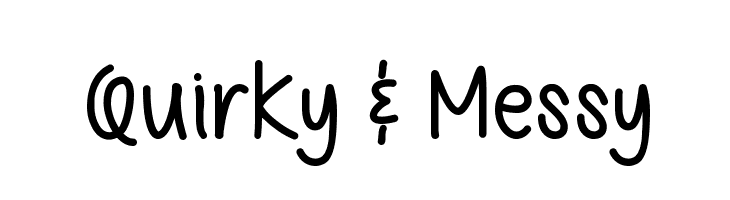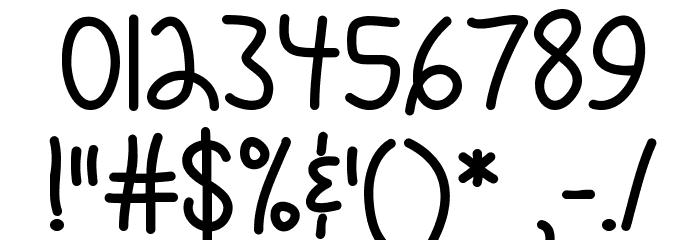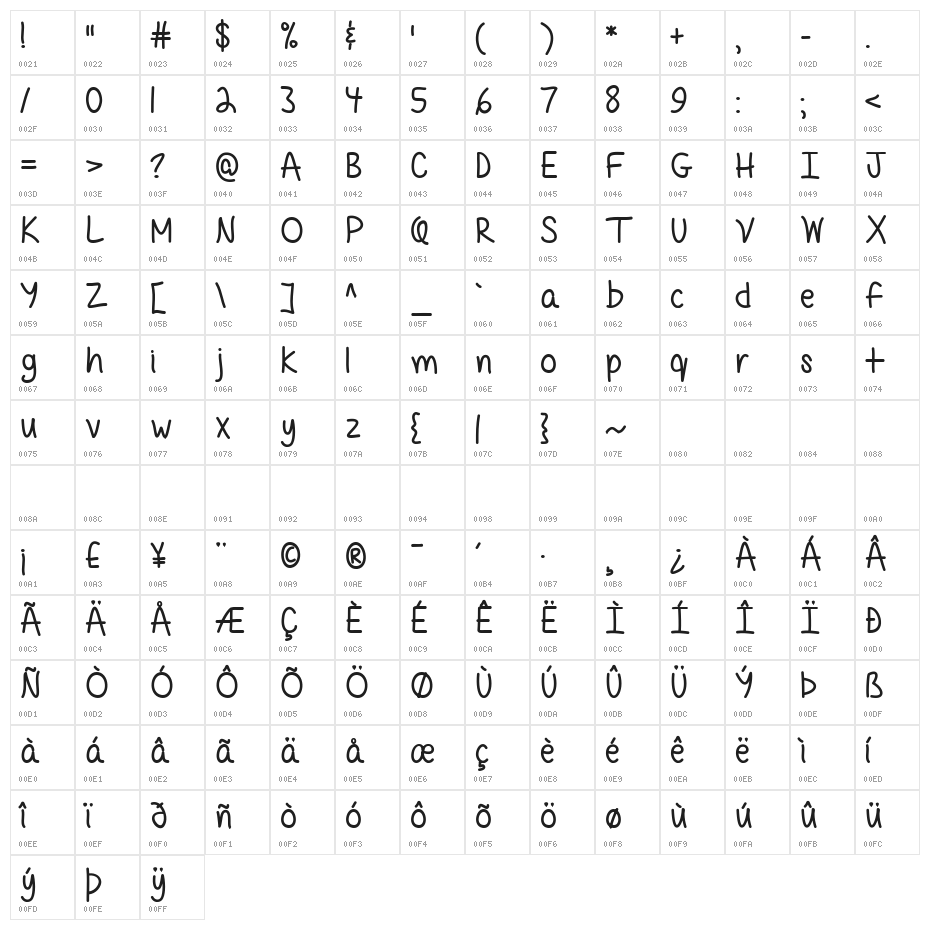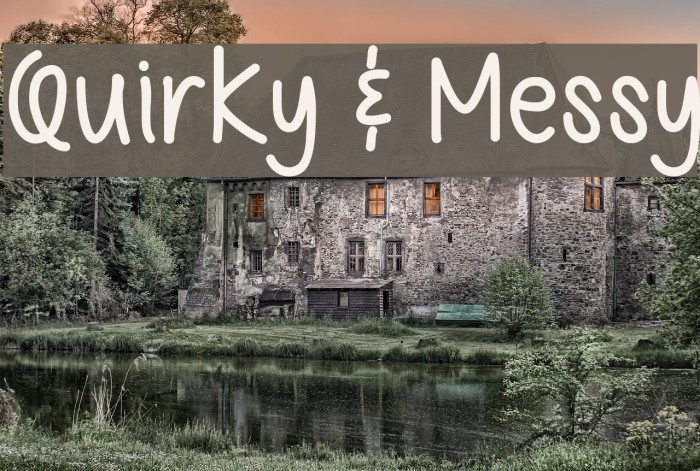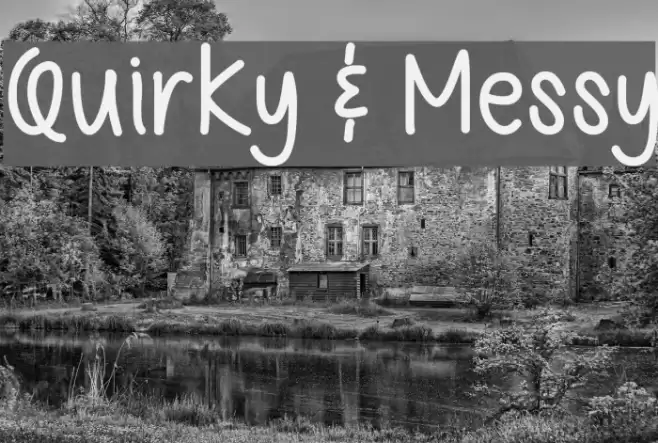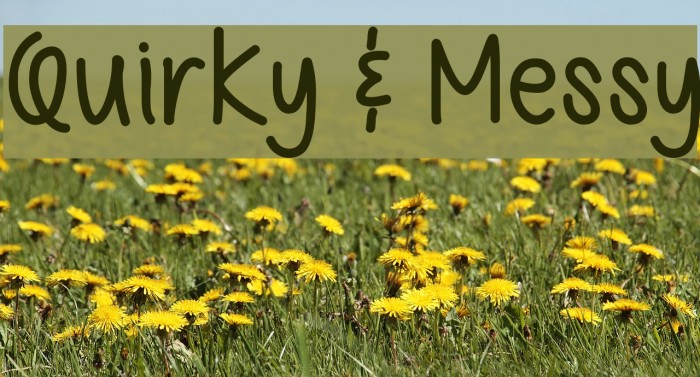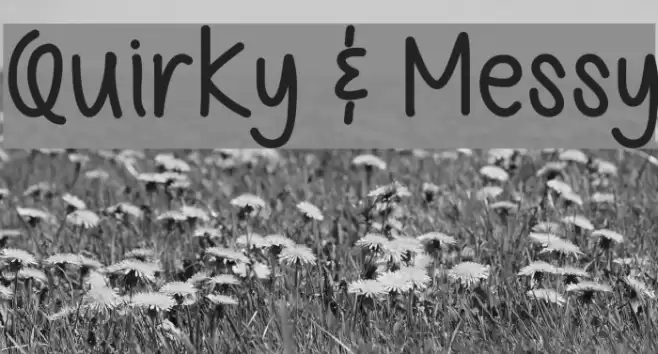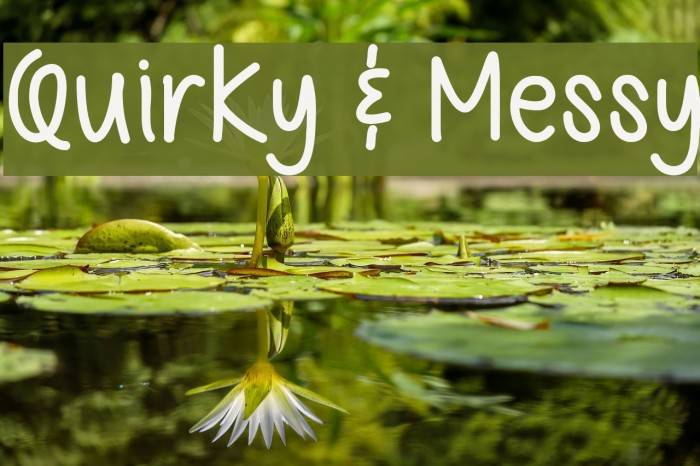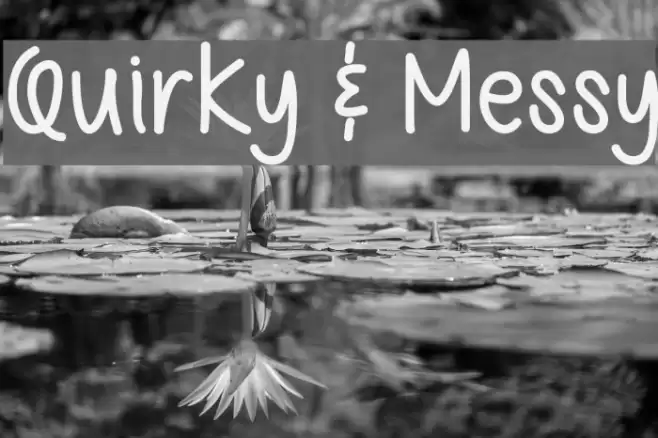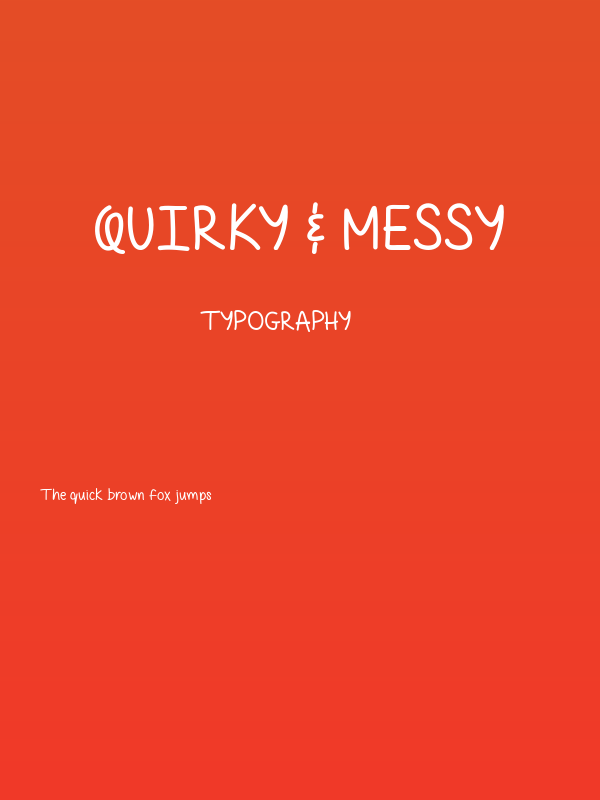
Quirky & Messy Font
Quirky & Messy Description
This font exudes a playful and whimsical charm, characterized by its uneven, hand-drawn appearance. The letters have a casual, informal style with slightly irregular strokes that give it a quirky, lively feel. The uppercase and lowercase letters maintain a consistent flow, while the numbers and special characters add to its unique personality. Its organic, freeform nature makes it stand out, offering a sense of creativity and spontaneity. The font's overall appearance is approachable and friendly, making it suitable for projects that aim to convey a sense of fun and individuality.
| Proposed Projects | Ideal for children's books, creative posters, casual branding, and playful invitations. |